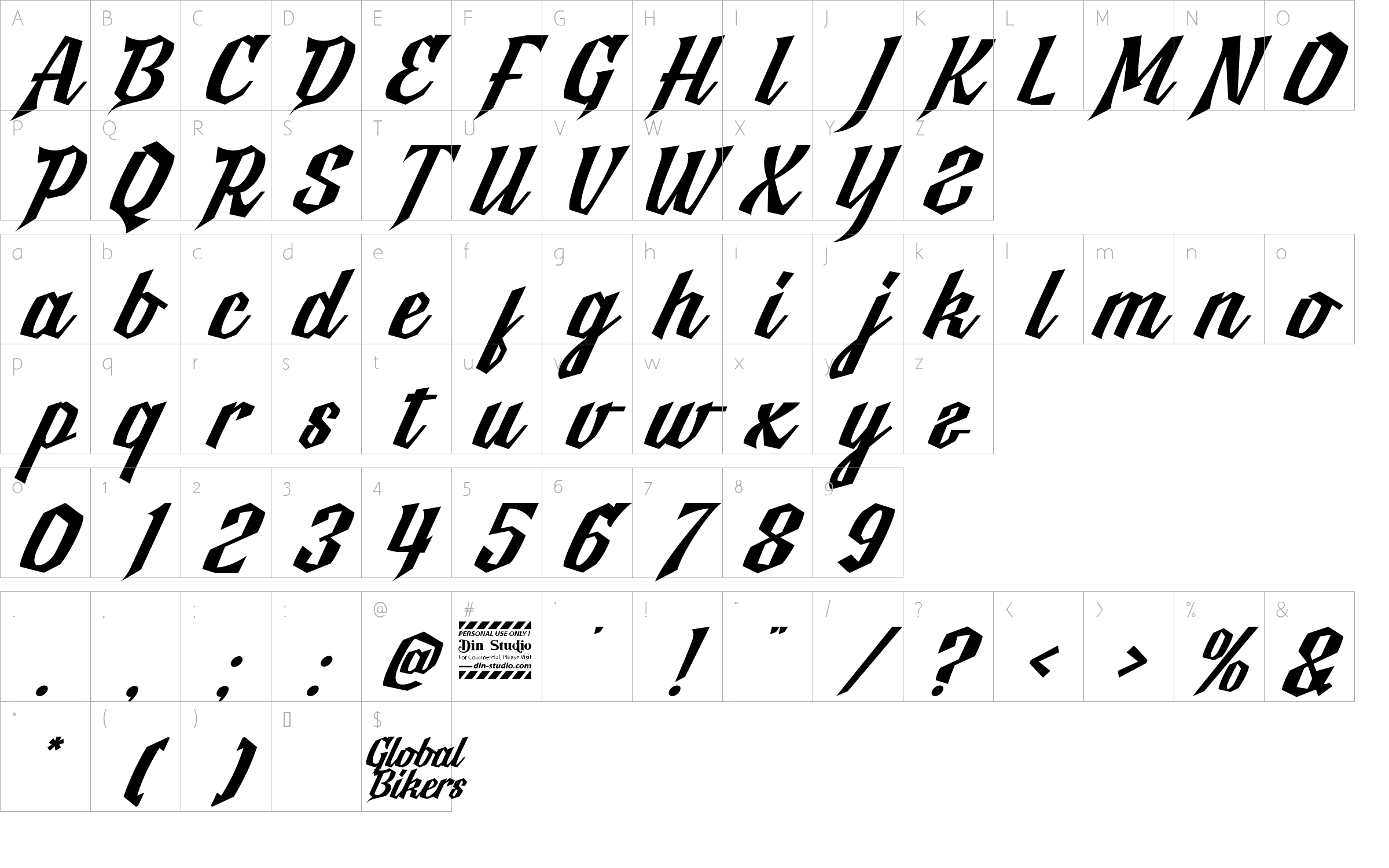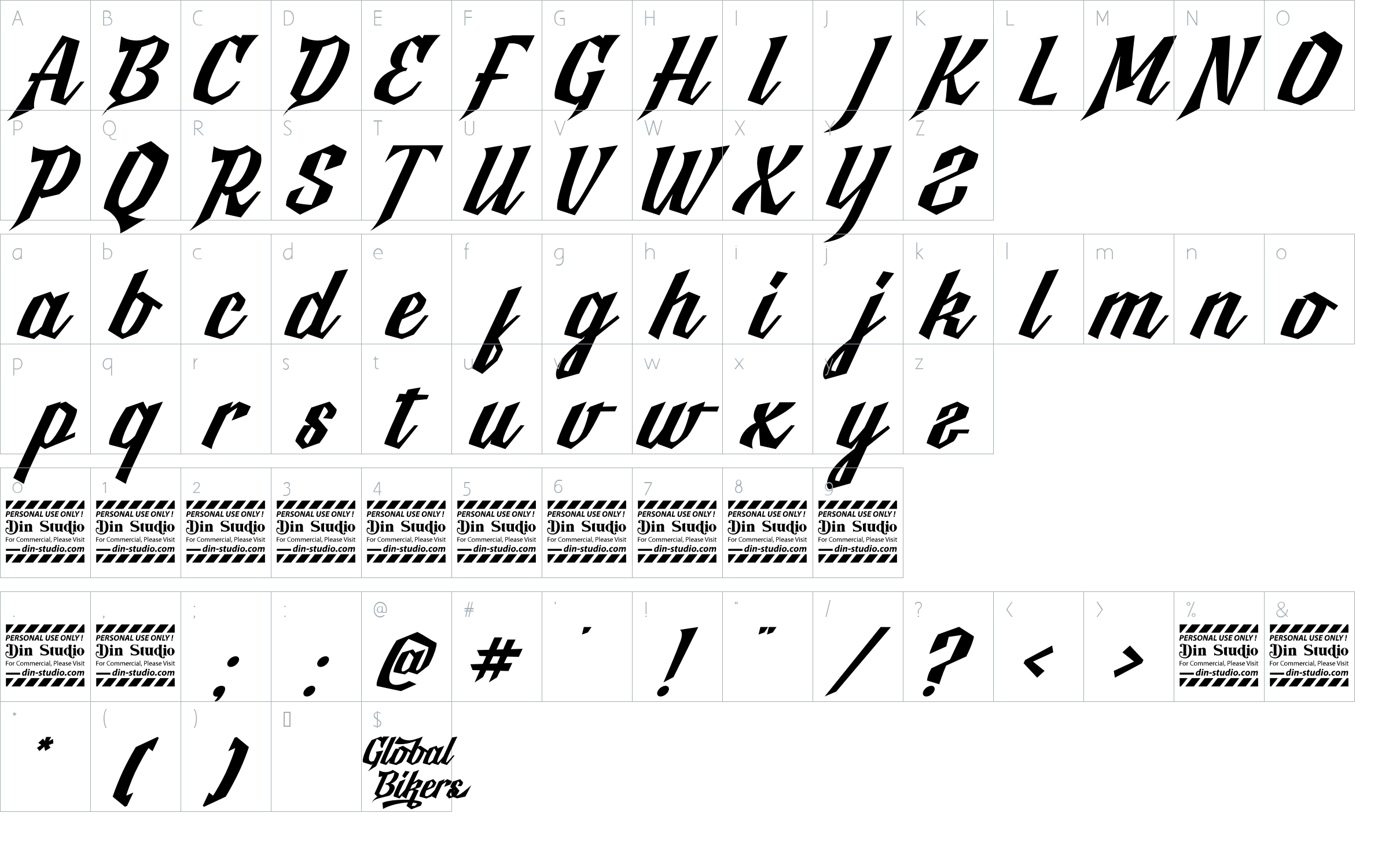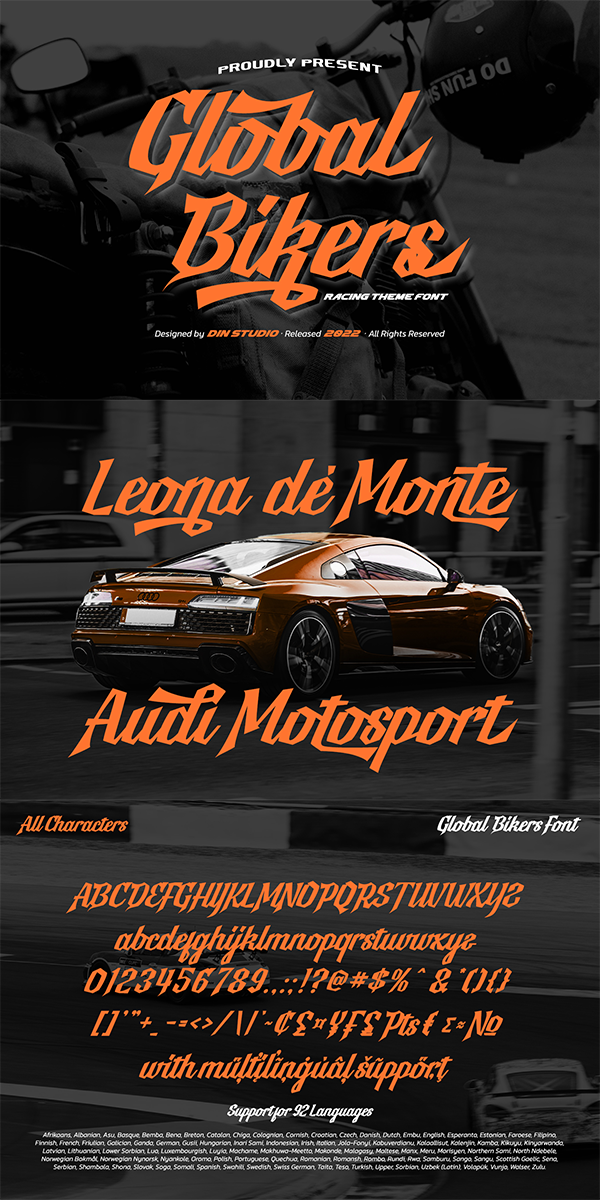
Global Bikers Font
About Global Bikers
Global Bikers a racing-themed script font made in thick displays. Unlike other useful cursive fonts looking similar to hand writings, this font really fits into bigger-sized texts. The available features in this font are:
Global Bikers is greatly appropriate for various designs, such as posters, banners, logos, book covers, headings, printed products, merchandise, social media, and more. Find out more ways to use this font by taking a look at the font preview.